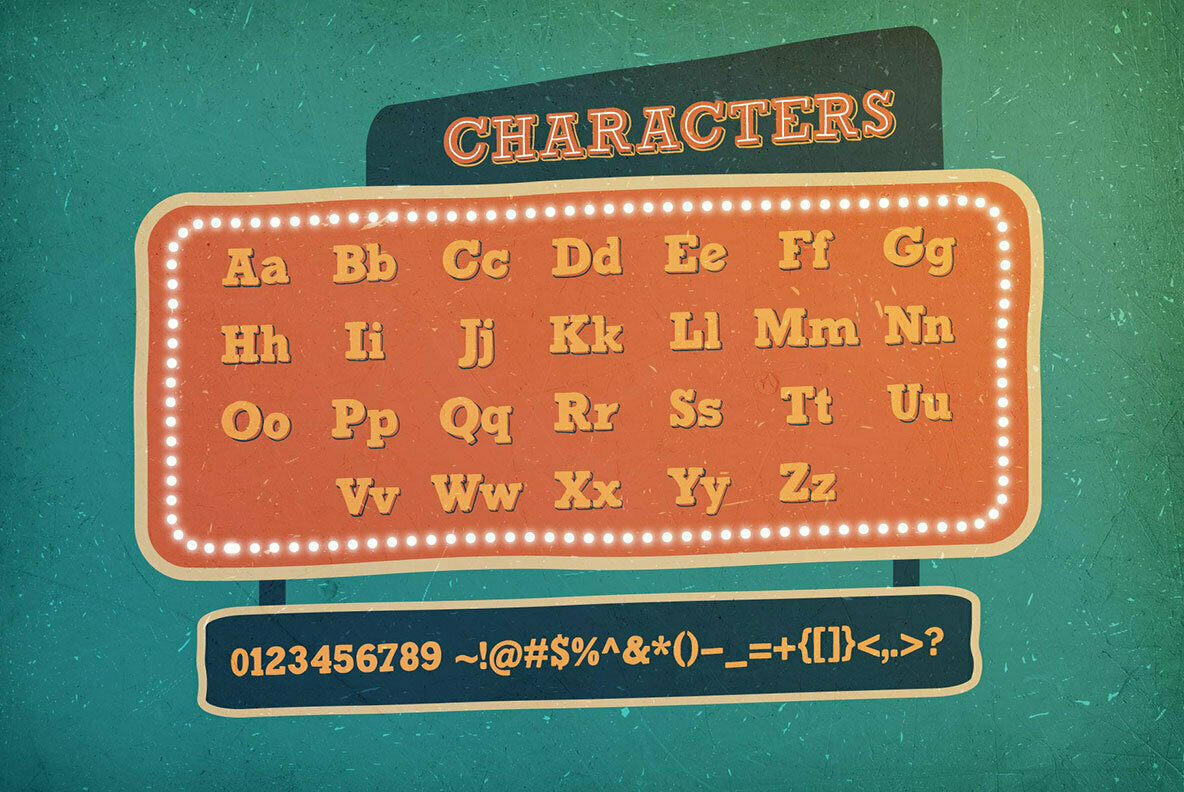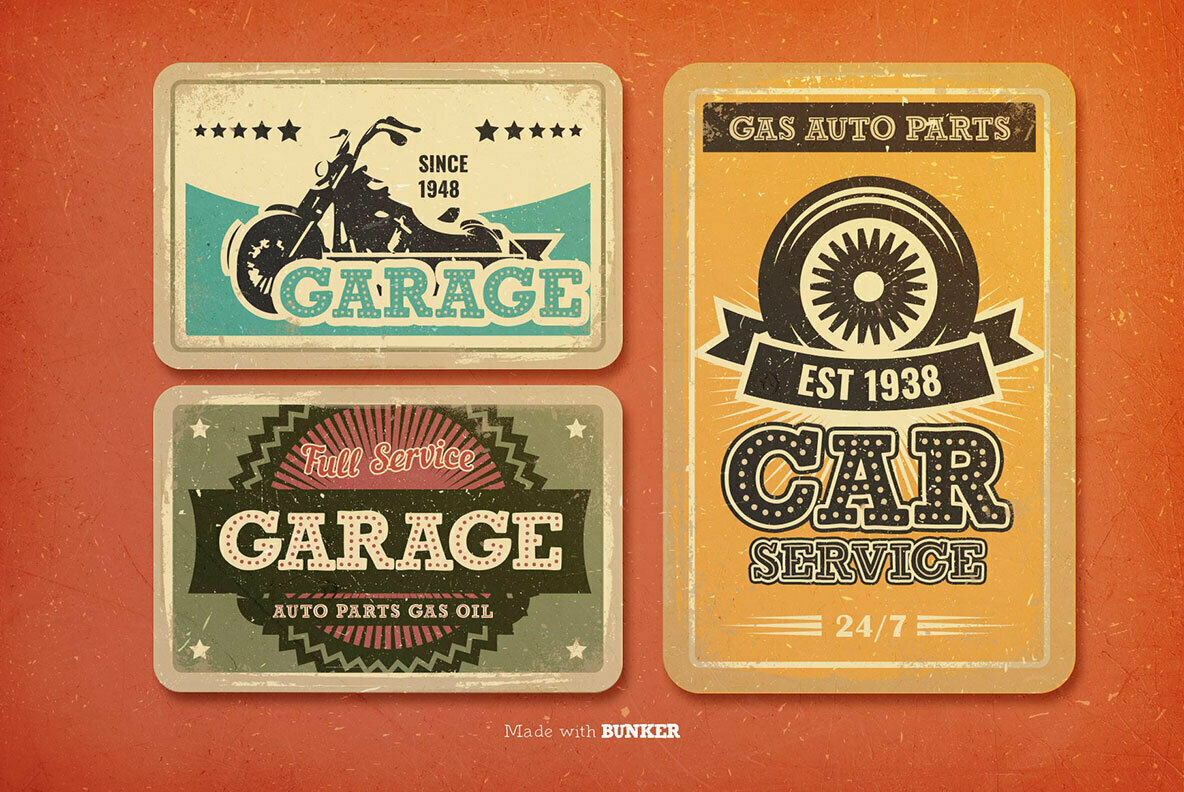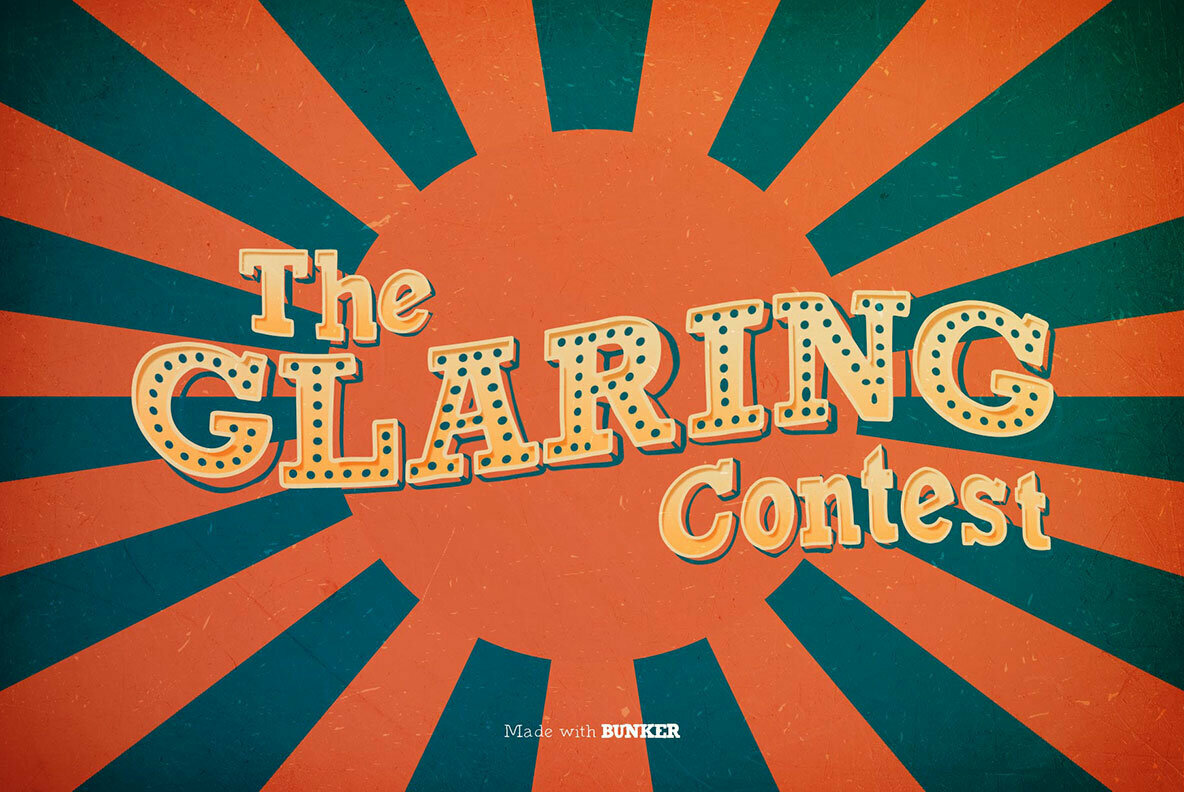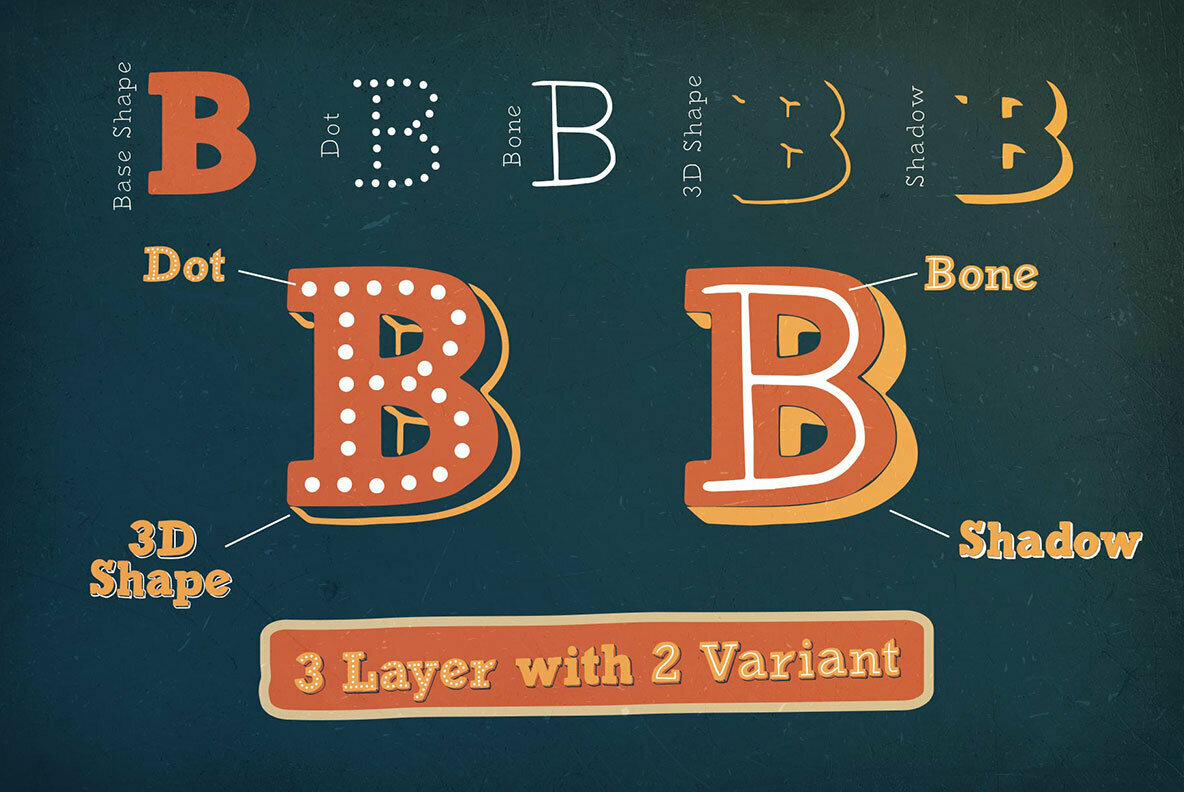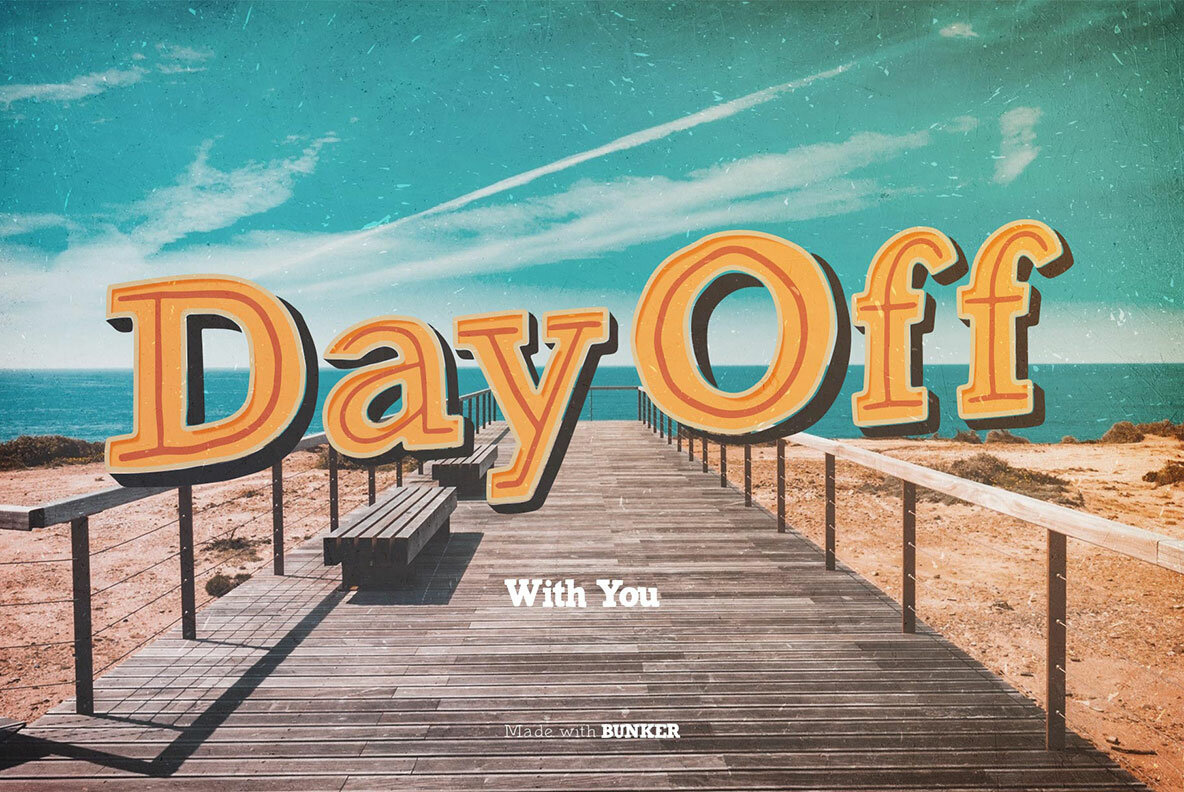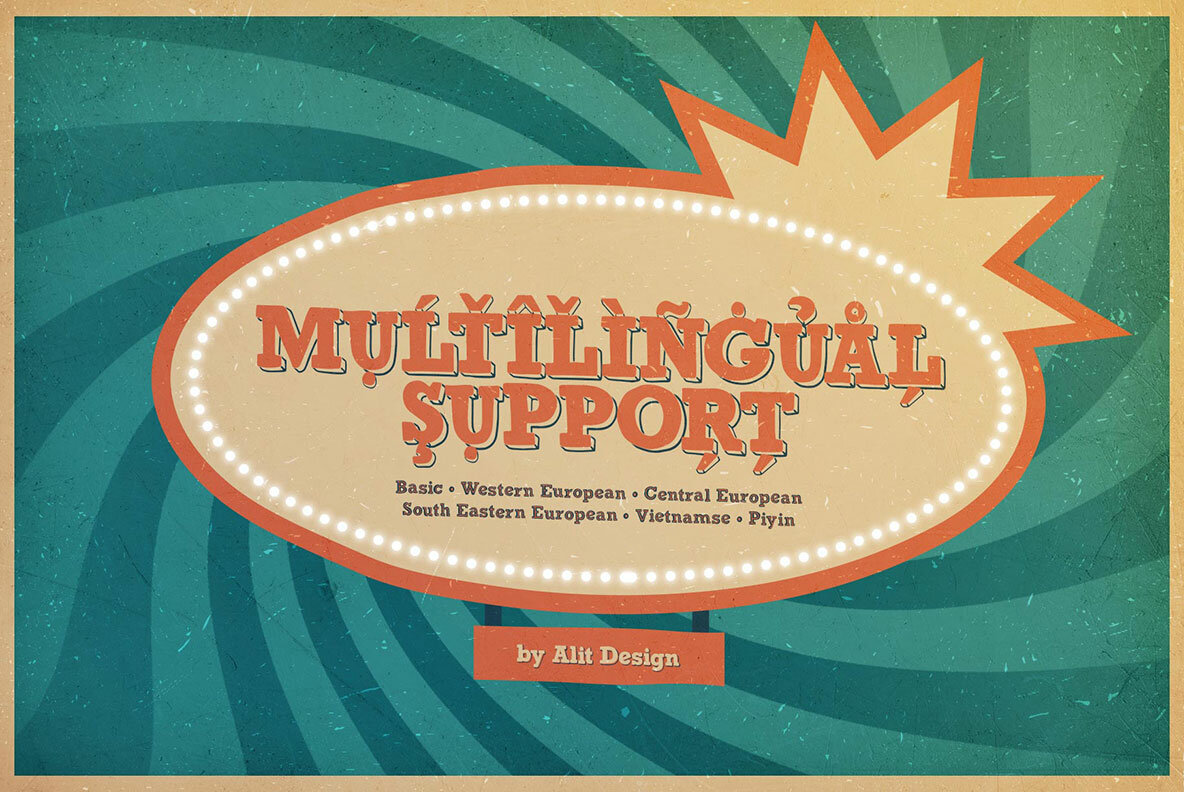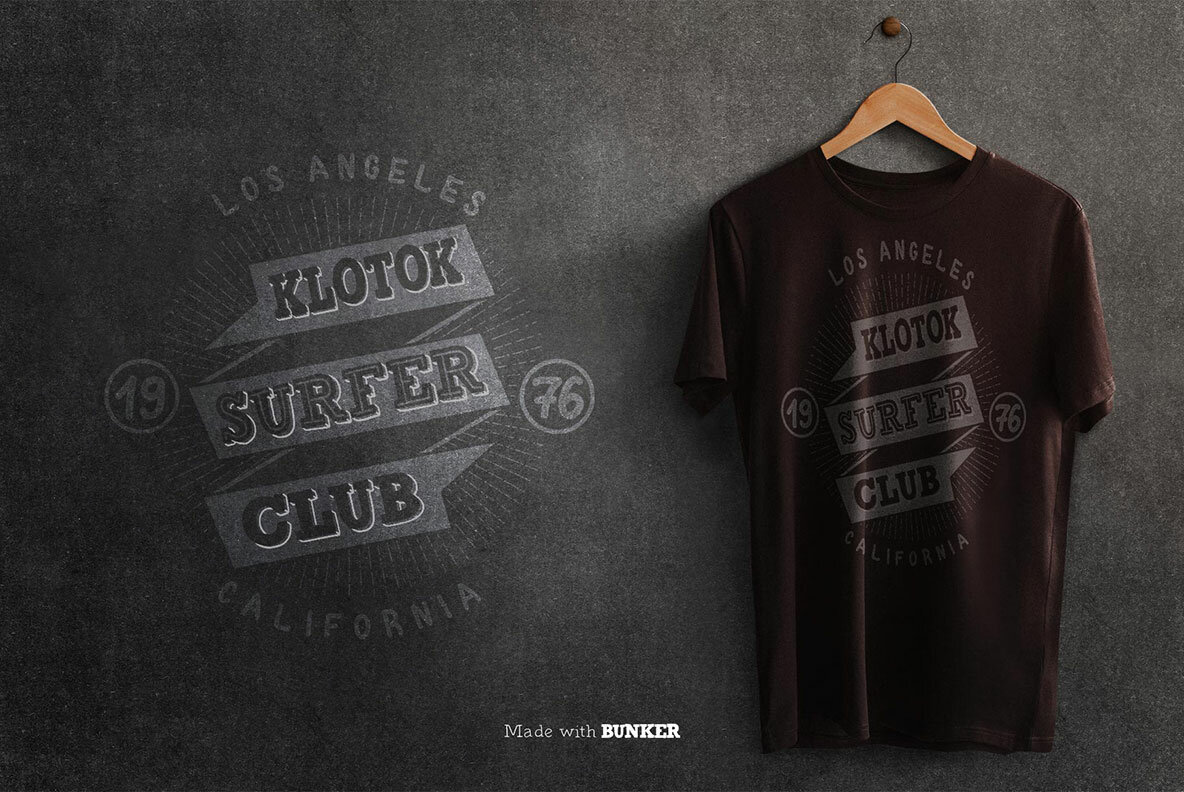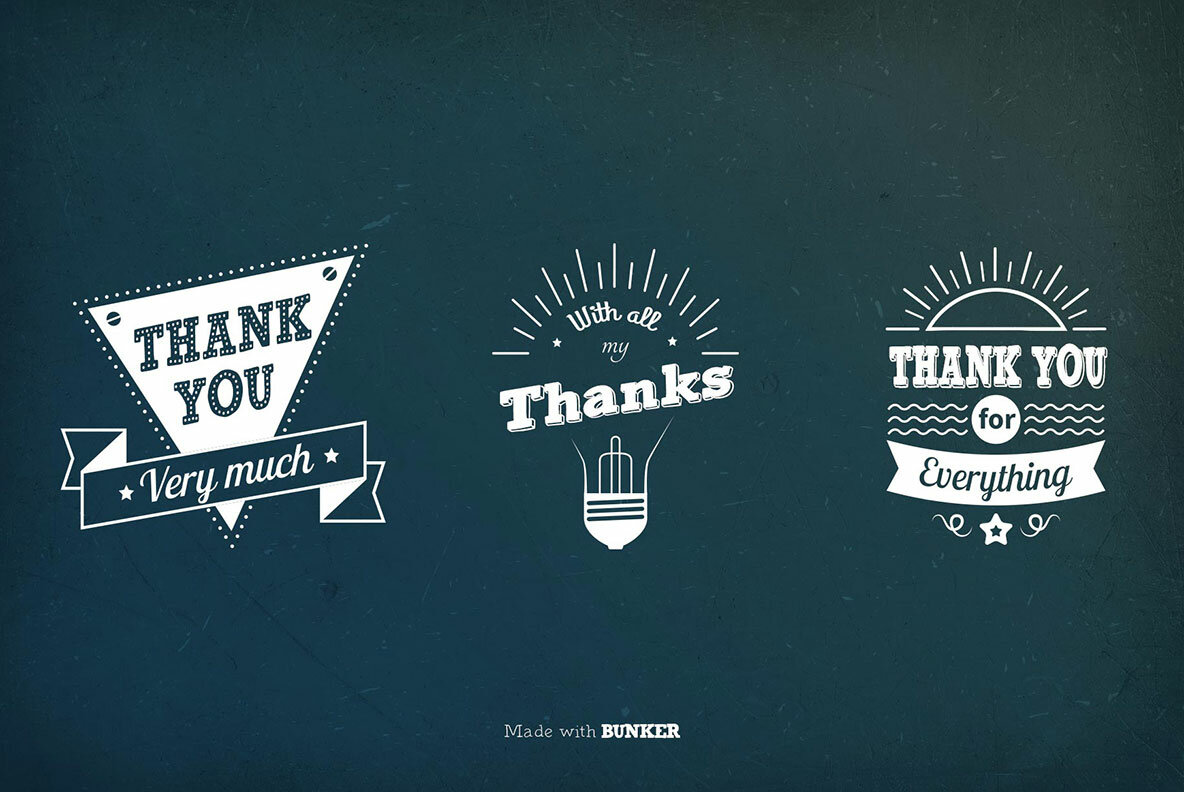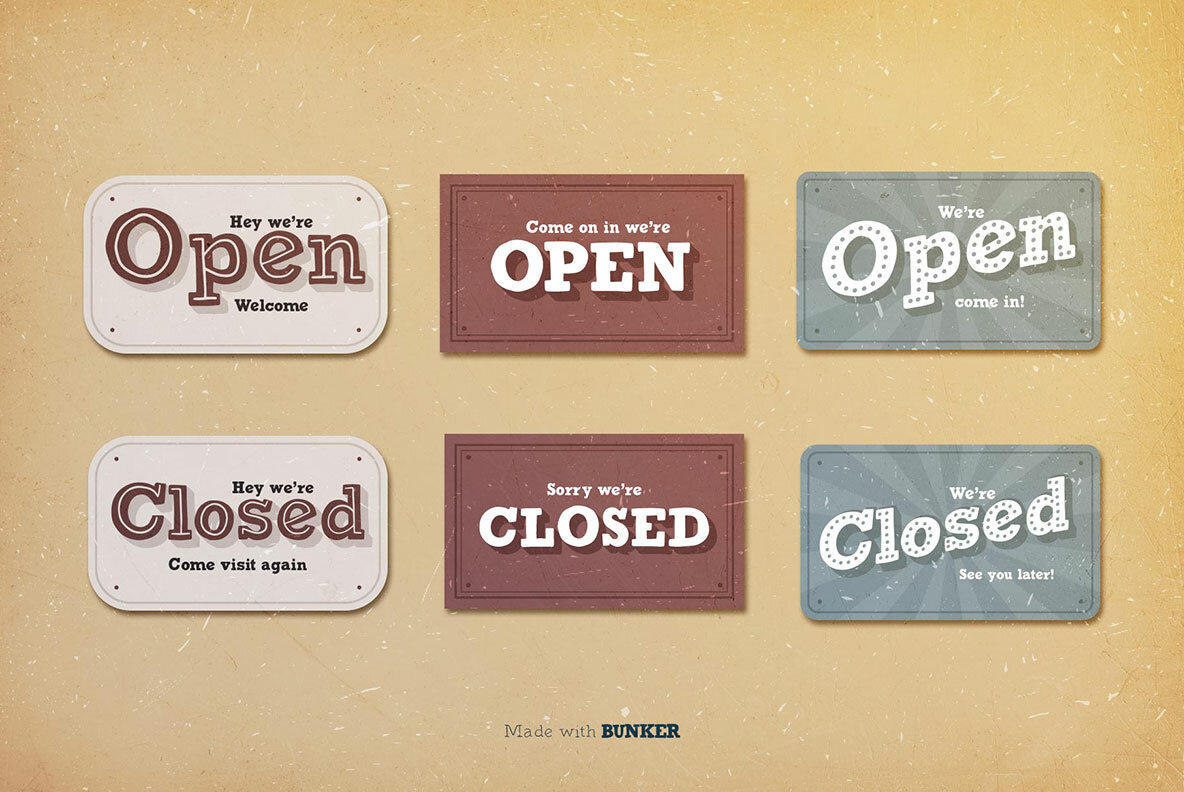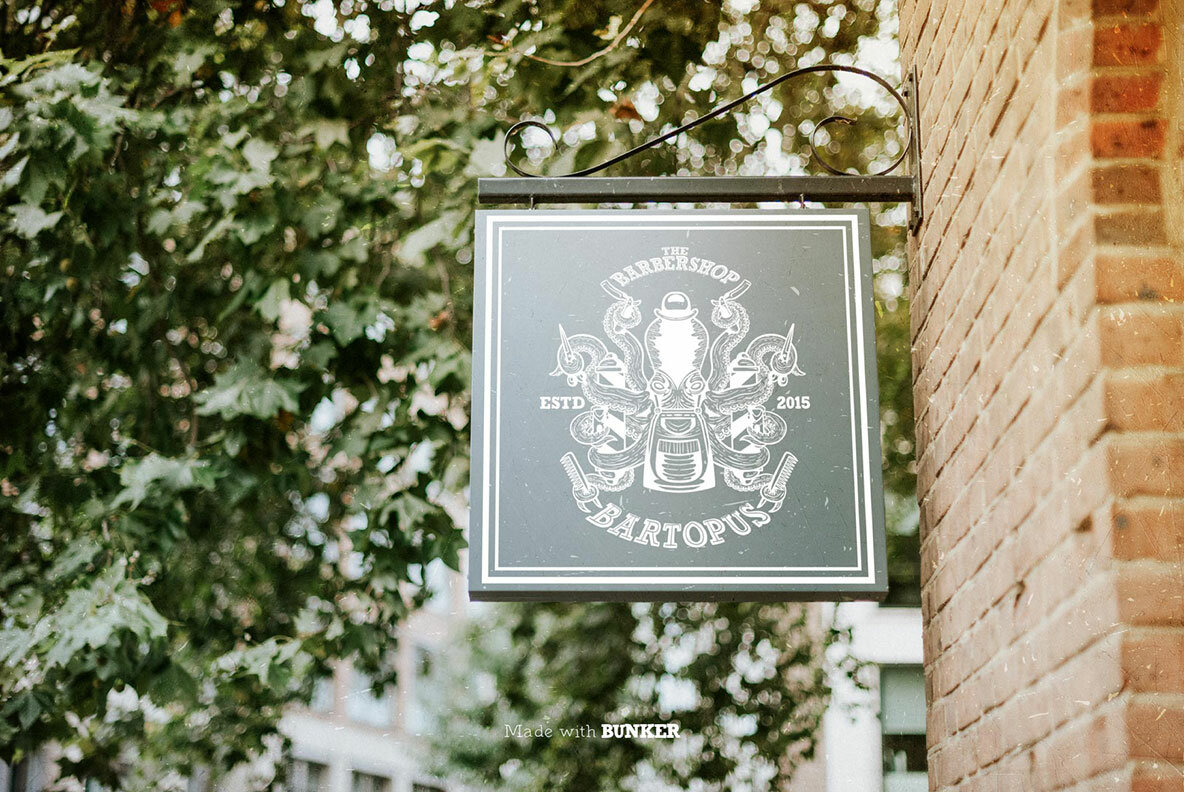
Bunker Font
BUNKER Regular
BUNKER 3D
BUNKER BONE
BUNKER DOT
BUNKER Shadow
Explore the vibrant allure of nightlife with the Bunker Typeface. Designed with the aesthetic of retro signs, this typeface captures the essence of urban glamour, offering a striking option for neon lettering and more. Its classic slab serif structure ensures seamless integration into various design projects that draw on retro and signage concepts. With open accessibility across design and non-design programs, including full Unicode (PUA) support, Bunker is versatile and user-friendly. Unlock the full potential of Bunker Typeface by utilizing programs that support OpenType features such as Adobe Illustrator, Photoshop, InDesign, and Corel Draw. For those without access to OpenType panels, additional swash font files ensure you can create stunning designs with minimal effort.Bunker Typeface: Retro Signage Elegance